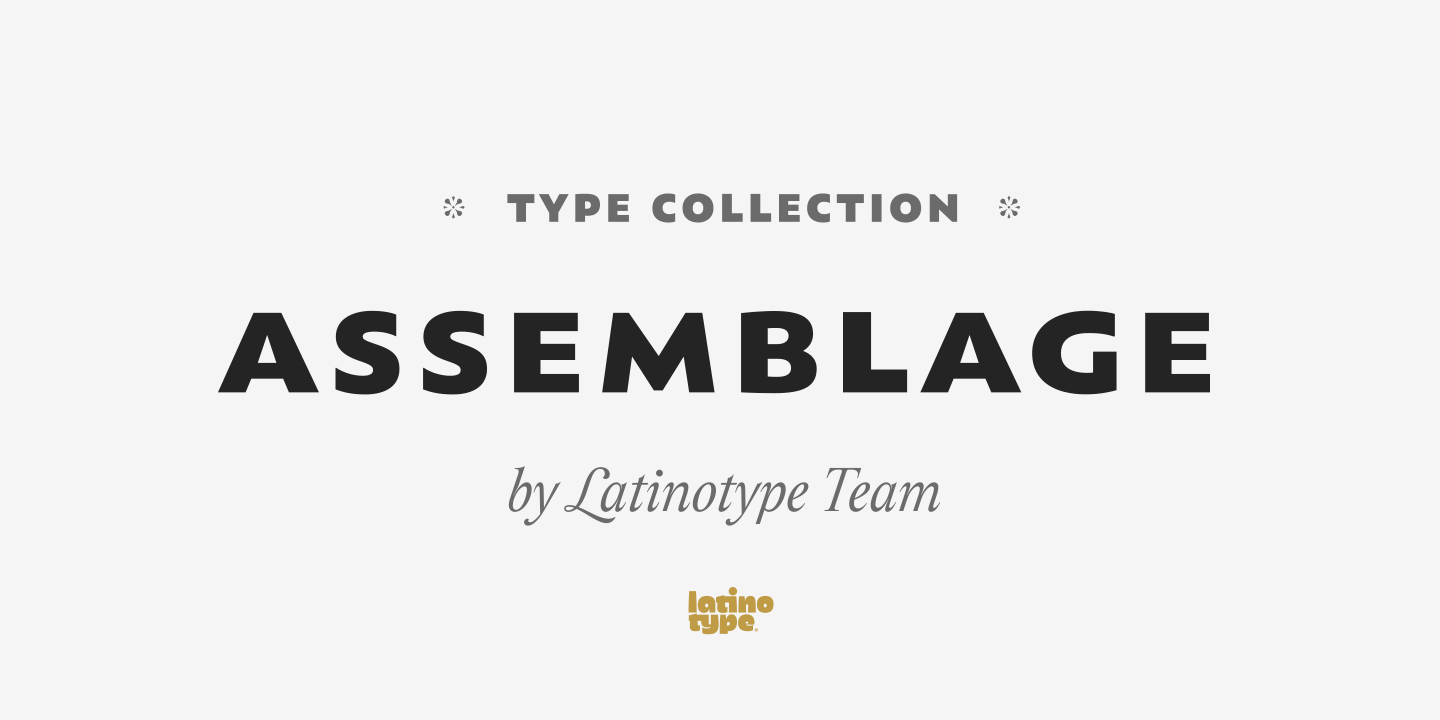
Assemblage Font is ideal for contemporary art galleries, avant-garde exhibition materials, modern sculpture catalogs, experimental design projects, creative studio branding, architectural presentations, conceptual advertising campaigns, industrial design portfolios, artistic publication layouts, and innovative cultural communications. This artistic typeface creates sophisticated creative atmosphere in both gallery print and digital art applications.
What makes Assemblage Font exciting is its masterful construction that mirrors the artistic process of assemblage art with carefully composed typographic elements. The font features layered letterforms with architectural precision and sculptural character that evoke the complexity and depth of mixed-media artwork. Its sophisticated design establishes an atmosphere of artistic innovation and creative intelligence that appeals to cultured audiences and art enthusiasts.
Assemblage Font family includes artistic variations: Light, Regular, Medium, Bold, Layered, and Deconstructed versions. Each variant maintains the font's creative integrity while providing designers with sculptural options for creating artistic typography systems and gallery-quality communication materials.
This distinguished artistic typeface brings authentic creative sophistication to projects requiring cultural presentation. Whether you're designing art exhibitions, creative branding, or avant-garde marketing materials, Assemblage Font Free Download delivers exceptional artistic credibility and contemporary appeal. The font's sculptural proportions and layered details ensure memorable cultural impact across various artistic applications.
Art galleries and creative institutions recognize how Assemblage Font perfectly captures the essence of contemporary art and sculptural design principles. Its artistic foundation combined with architectural precision makes it essential for cultural and creative design projects. Download today and construct your designs with this exceptionally sophisticated artistic typography.